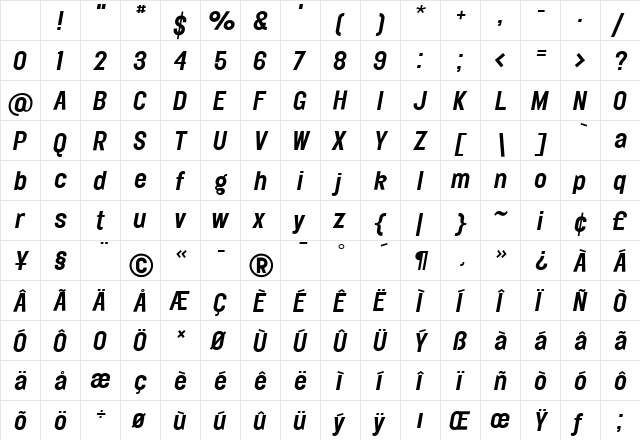
Complete Elephant Medium Italic glyph index. Displaying only characters natively supported by Elephant Medium Italic font.
Elephant is a composed and adaptable typeface that performs quietly and consistently across a wide range of design contexts. The slanted form adds forward momentum and visual energy.
Pro Tip: Use Elephant for emphasis, pull quotes, and subheadings where its slanted energy can add rhythm to the layout.